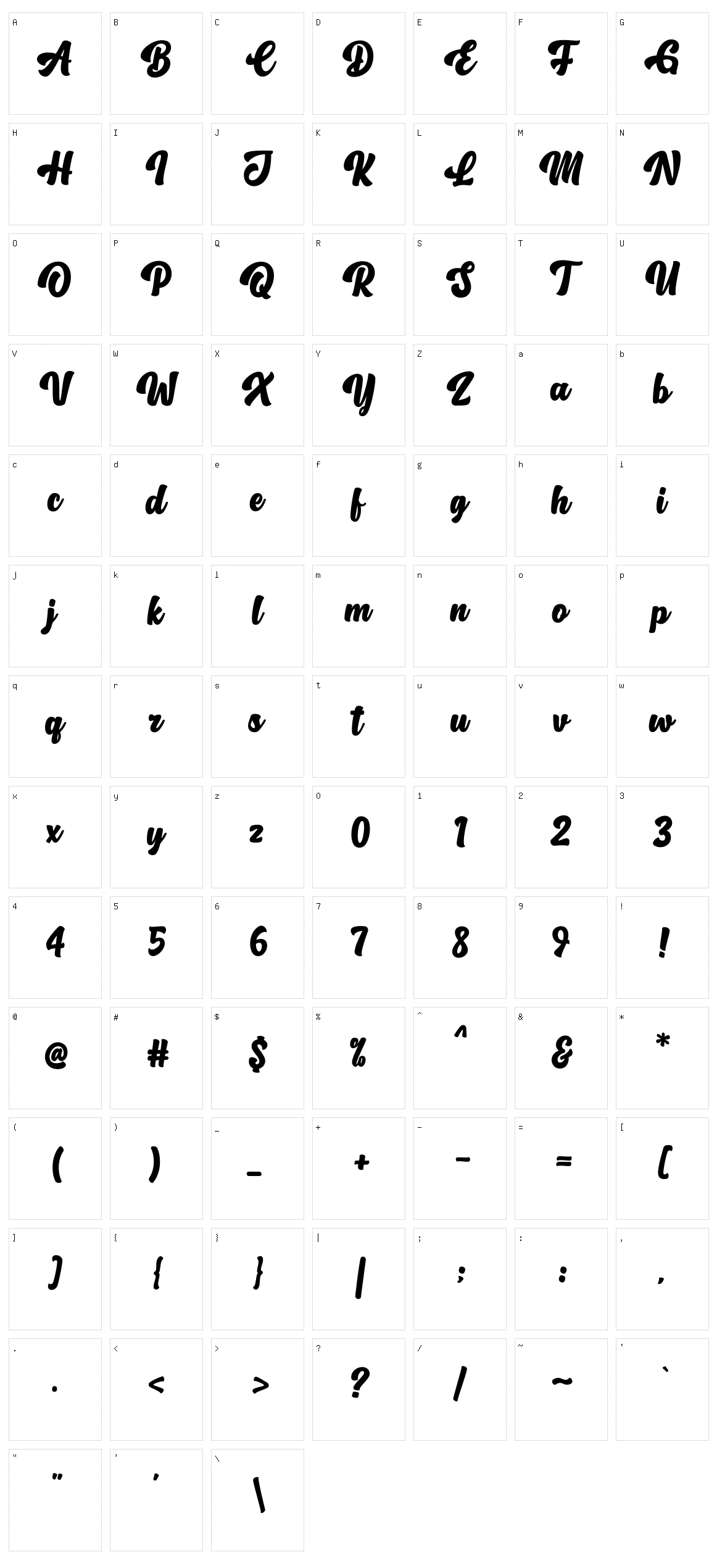
The free font Oh Chewy is carefully designed by Motokiwo, showcasing a thoughtful balance of creativity and usability and falls under the Old-School font style. When you download the ZIP file, it contains only 1028.1 KB of font files, making it lightweight and quick to download. Please review the license details below to understand permitted usage and distribution rights. If license information is not available, we recommend using this font for personal projects only or contacting the author directly for commercial usage permissions.